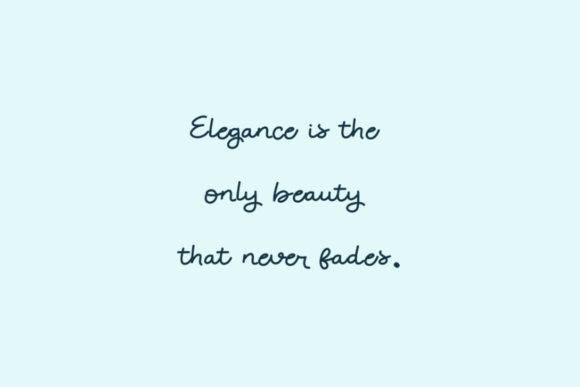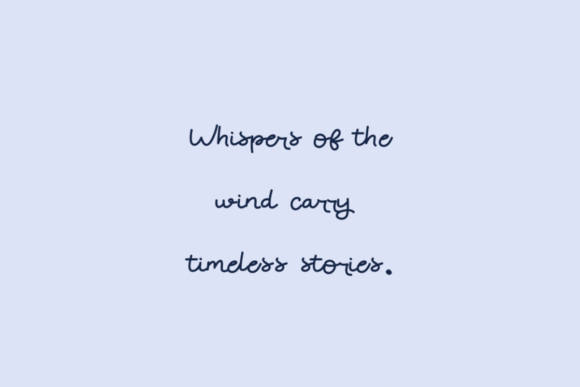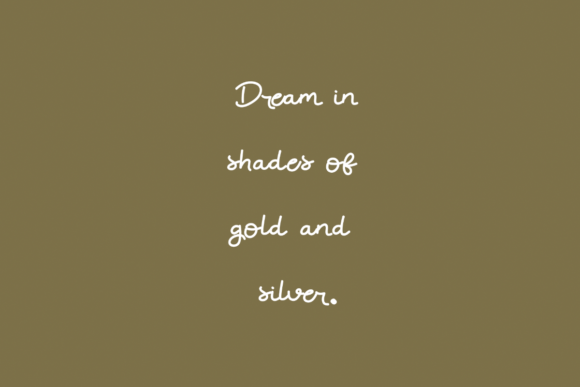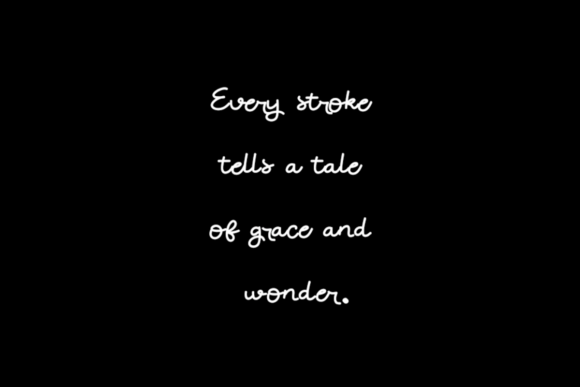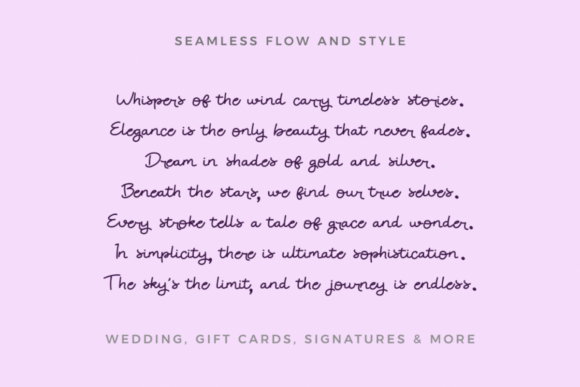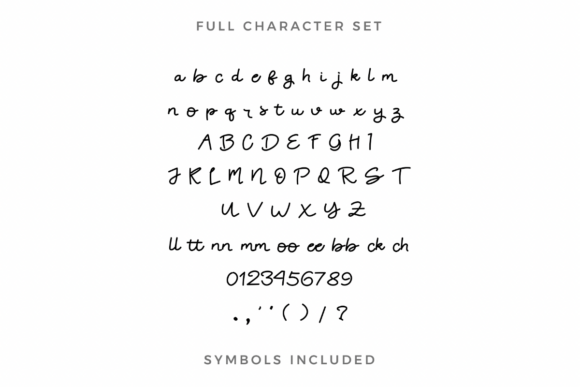
Discover the Allure of Haisley Font: A Unique Script Font for Your Design Endeavors
In the world of typography, few fonts manage to capture the essence of artisanal craftsmanship and elegance as beautifully as Haisley. This exceptional, one-of-a-kind script font is a masterpiece of design, blending delicate hand-written and hand-lettered styling to create a romantic and darling appeal that’s perfect for adding a personal touch to any design project. In this article, we’ll explore the unique features of Haisley font and why it’s a must-have for designers and crafters looking to elevate their work.
The Beauty of Hand-Written and Hand-Lettered Design
Haisley font stands out from the crowd with its organic, hand-written and hand-lettered design. Each letter is carefully crafted to mimic the natural flow of human handwriting, giving the font a uniquely personal and intimate feel. The hand-written and hand-lettered styling of Haisley font makes it perfect for designs that require a touch of warmth and personality, such as wedding invitations, branding materials, and packaging design.
A Delicate Blend of Artisanal Craftsmanship and Elegance
What sets Haisley apart from other script fonts is its delicate blend of artisanal craftsmanship and elegance. The font’s design is characterized by its flowing letters, refined aesthetic, and attention to detail. The result is a font that exudes sophistication and luxury, making it perfect for high-end branding, advertising, and editorial design.
Perfect for Adding a Personal Touch to Your Designs
One of the key benefits of Haisley font is its ability to add a personal touch to any design project. Whether you’re working on a wedding invitation, a branding campaign, or a packaging design, Haisley font can help you create a unique and memorable visual identity. The font’s hand-written and hand-lettered styling gives it a human touch that’s hard to replicate with digital fonts, making it perfect for designs that require a personal and emotional connection with the audience.
Captivating Your Audience with Haisley’s Uniquely Lovely Charm
Haisley font has a uniquely lovely charm that is sure to captivate your audience. Its delicate design, refined aesthetic, and hand-written and hand-lettered styling make it a font that’s hard to ignore. Whether you’re working on a digital or print project, Haisley font can help you create a visual identity that’s both beautiful and effective. With Haisley, you can add a touch of elegance and sophistication to your designs, making them stand out in a crowded marketplace.
Why Designers and Crafters Love Haisley Font
So, why do designers and crafters love Haisley font? Here are just a few reasons:
- Unique design: Haisley font has a one-of-a-kind design that’s sure to make your designs stand out.
- Hand-written and hand-lettered styling: The font’s hand-written and hand-lettered styling gives it a personal and intimate feel that’s hard to replicate with digital fonts.
- Elegant and refined aesthetic: Haisley font exudes sophistication and luxury, making it perfect for high-end branding, advertising, and editorial design.
- Perfect for adding a personal touch: Haisley font is perfect for designs that require a personal and emotional connection with the audience.
How to Use Haisley Font in Your Designs
Using Haisley font in your designs is easy. Here are a few tips to get you started:
- Pair it with a simple font: Haisley font works best when paired with a simple font. Try pairing it with a sans-serif font like Arial or Helvetica.
- Use it for headlines and titles: Haisley font is perfect for headlines and titles. Use it to add a touch of elegance and sophistication to your designs.
- Experiment with different colors: Haisley font looks great in a variety of colors. Experiment with different colors to find the one that works best for your design.
In conclusion, Haisley font is a unique and exceptional script font that’s perfect for designers and crafters looking to add a personal touch to their designs. Its delicate blend of artisanal craftsmanship and elegance, hand-written and hand-lettered styling, and refined aesthetic make it a font that’s hard to ignore. Whether you’re working on a wedding invitation, a branding campaign, or a packaging design, Haisley font is sure to captivate your audience with its uniquely lovely charm. So why not give Haisley font a try and see how it can elevate your designs?